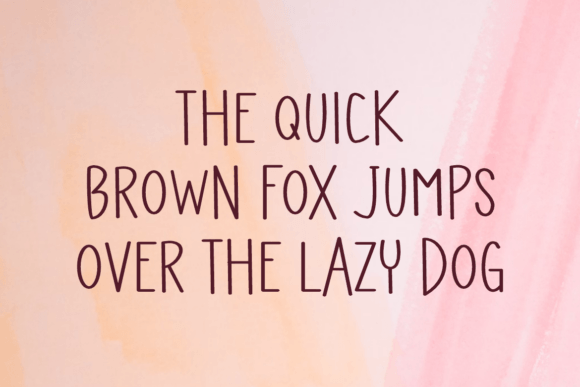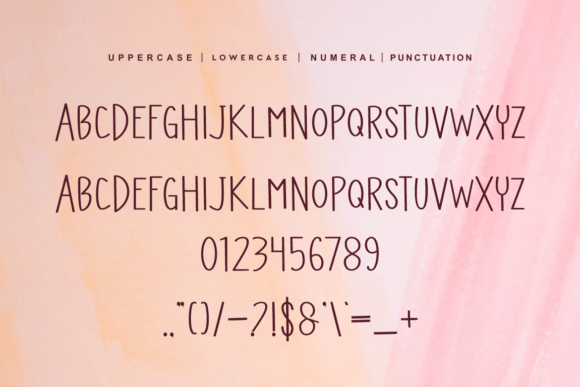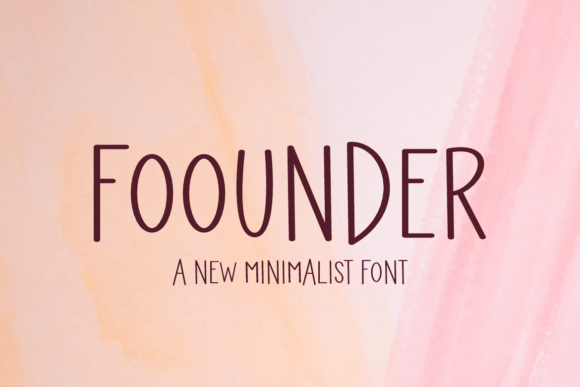
Unleash Your Creativity with Foounder Font: A Versatile Typeface for Diverse Design Applications
In the realm of design, the right typography can elevate your creative output from ordinary to extraordinary. If you’re on the hunt for a font that can seamlessly adapt to various design projects, look no further than the Foounder Font. This distinctive typeface is tailor-made to enhance a myriad of design applications, making it an indispensable asset for designers and crafters alike.
A World of Creative Possibilities
Whether you’re crafting gripping scenes for your film, designing eye-catching posters, creating memorable gig flyers, stunning album covers, or innovative logos, the Foounder Font is poised to propel your design journey to unprecedented heights. Its unique characteristics and versatility make it an ideal choice for a wide range of projects, allowing you to express your creativity with precision and flair.
Key Features of Foounder Font
• Distinctive Style: The Foounder Font boasts a unique and captivating style that sets it apart from more traditional typefaces. Its distinctive imprint adds a touch of sophistication and elegance to any design project.
• Wide Range of Applications: From film and music to branding and advertising, the Foounder Font is designed to excel in a multitude of design applications. Its adaptability makes it an excellent addition to any designer’s toolkit.
Enhance Your Design Output
The Foounder Font is more than just a typeface – it’s a creative catalyst that can elevate your design output to new heights. By incorporating this font into your projects, you’ll be able to:
• Create visually stunning designs that capture attention and leave a lasting impression.
• Add a touch of sophistication and elegance to your projects.
• Stand out in a crowded design landscape with a unique and distinctive typography.
Why Choose Foounder Font?
With so many fonts available, why choose the Foounder Font? Here are just a few compelling reasons:
• Unparalleled Versatility: The Foounder Font is designed to excel in a wide range of design applications, making it an excellent investment for designers and crafters.
• High-Quality Design: Crafted with precision and attention to detail, the Foounder Font is a testament to exceptional design.
In conclusion, the Foounder Font is a game-changer for designers and crafters looking to elevate their creative output. Its distinctive style, versatility, and wide range of applications make it an indispensable asset for any design project. With the Foounder Font, you’ll be able to unlock new creative possibilities, add a touch of sophistication to your designs, and stand out in a crowded design landscape. So why wait? Experience the power of Foounder Font today and take your design journey to unprecedented heights.